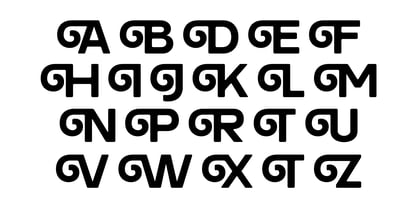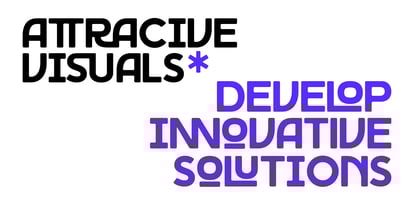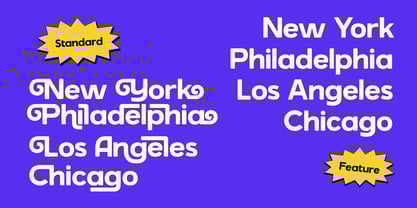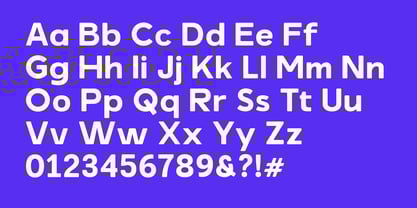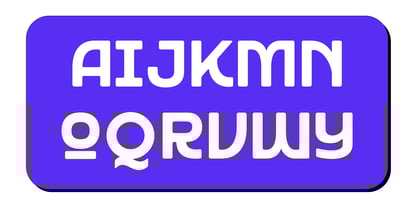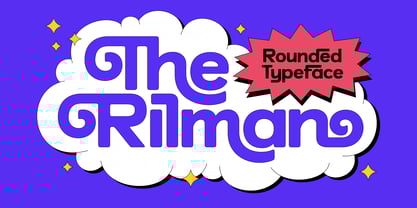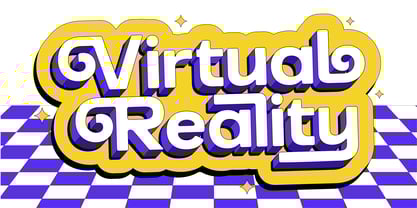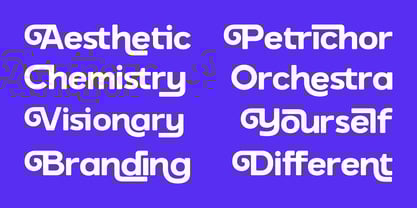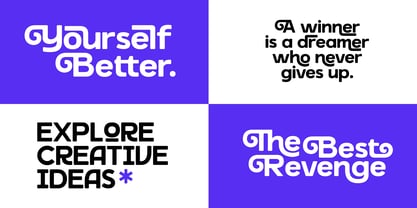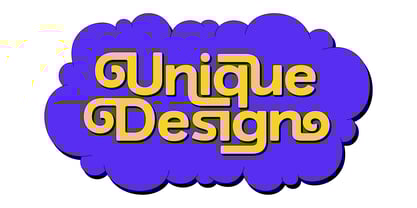
The Rilman
by Graptail
The The Rilman Font Family was designed by Teuku Deky Firnanda and published by Graptail. The Rilman contains 1 styles. More about this family
Introducing The Rilman, a modern sans serif font that combines simplicity with a touch of dynamism. Inspired by the popular modern sans serif design style today, with an innovative touch on the swash and alternate features. Designed with smooth, rounded corners, it gives a soft and modern impression and improves text readability.
Designers: Teuku Deky Firnanda
Foundry: Graptail